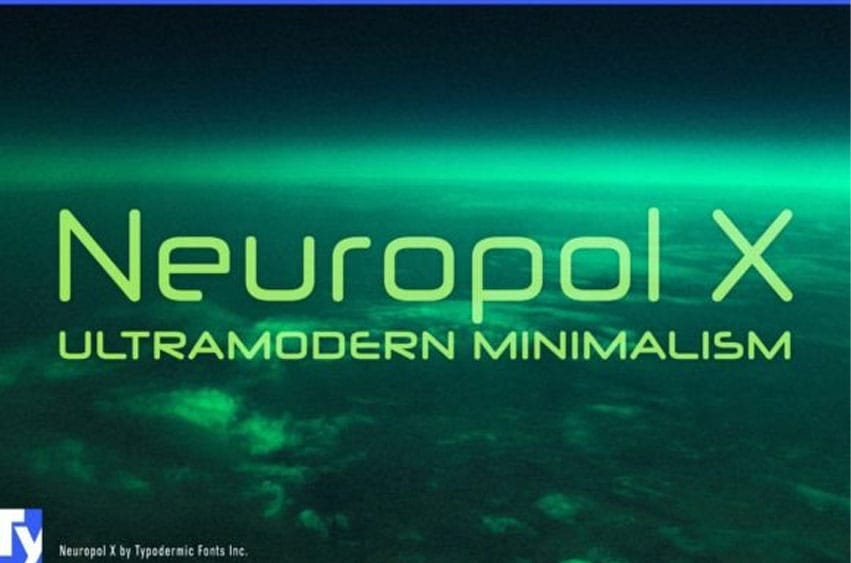
Neuropol X Font is a broad futuristic typeface with smooth, plastic letterforms.
Truncated, rounded strokes evoke visions of lasers, circuit boards, and oscilloscope vectors.